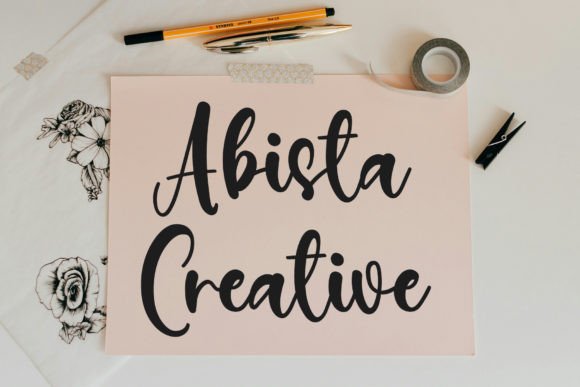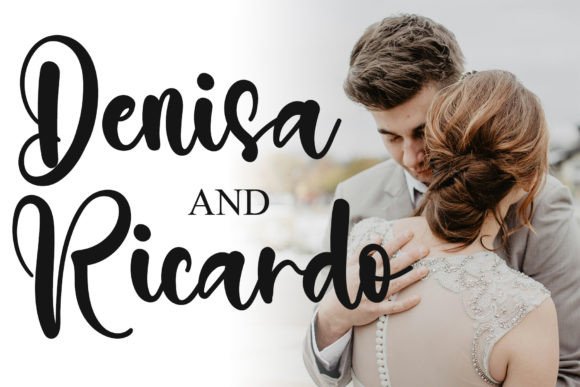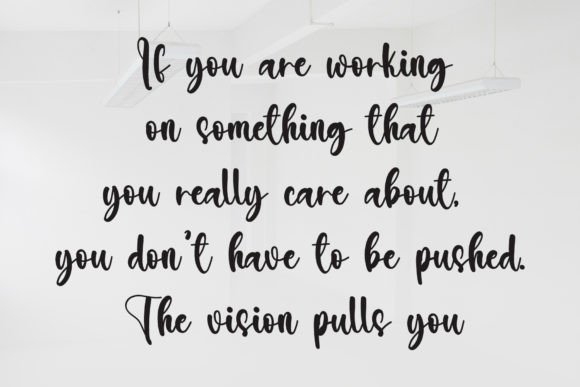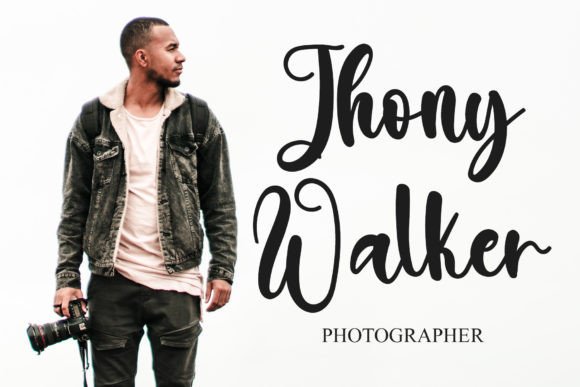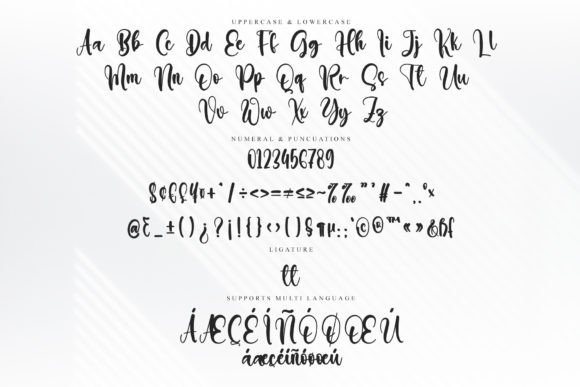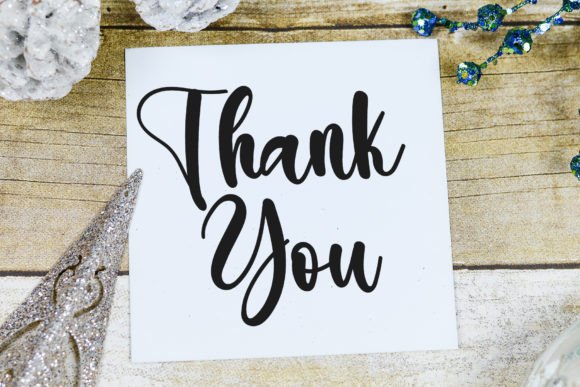
The Magic of the Season in Type
As the snowflakes start to fall and the fireplace crackles to life, I find myself rummaging through old holiday decorations, searching for that perfect touch to make this year’s celebrations truly special. It’s a feeling many designers can relate to – the urge to create something truly magical for the people we care about. And that’s exactly what the Farmhand Font is all about: spreading joy and festive cheer through the power of typography.
This enchanting typeface is designed to add a playful touch to your Christmas cards, decorations, and more. With its whimsical swashes and PUA encoding, you’ll have access to a world of amazing glyphs and ligatures at your fingertips. Whether you’re a seasoned designer or a holiday crafting novice, the Farmhand Font is the perfect tool to bring your festive vision to life.
Farmhand Font Key Features
- Unique Characteristics: Farmhand Font features a distinctive, hand-drawn design with a rustic feel, making it ideal for rural-themed designs, branding, and packaging.
Farmhand Font Review
I’ve had the chance to work with the Farmhand font, and here’s my honest take on it.
- Unique aesthetic: Farmhand font has a distinct, rustic feel that’s perfect for projects with a country or vintage vibe.
- High legibility: The font is surprisingly easy to read, even at smaller sizes, making it a great choice for body text.
- Good contrast: The font’s bold and light weights provide a nice contrast, making it easy to create visually appealing headings.
- Limited font weight options: While the bold and light weights are nice, there are only a few options in between, which can limit the font’s versatility.
- No italic or oblique options: If you need to use the font in a situation where italic or oblique text is required, you’re out of luck.
The Farmhand font is a solid choice for projects that need a rustic, country feel. While it has some limitations, its unique aesthetic and high legibility make it a great option for body text. If you’re looking for a font with a lot of flexibility, you might want to consider other options. But if you’re looking for a font that’s perfect for a specific niche, Farmhand is definitely worth considering.
Tips for Getting the Most Out of Farmhand Font
Use Farmhand Font for rustic, country-themed designs.
Combine with distressed textures and earthy colors for a unique look.
Use in conjunction with Farmhand-themed graphics, such as vintage farm equipment or agricultural illustrations.
Farmhand Font is ideal for:
Country-themed wedding invitations and stationery.
Rustic food labels and packaging.
Agricultural and outdoor-themed marketing materials.
Q: Is Farmhand Font available in different font weights?
Yes, Farmhand Font comes in multiple font weights, including Light, Regular, Medium, Bold, and Heavy. This allows designers to achieve the desired level of contrast and emphasis in their designs.
Q: What is the recommended line height for using Farmhand Font?
The recommended line height for using Farmhand Font is 1.2-1.5 times the font size. This helps maintain the font’s natural rhythm and prevents text from becoming too dense or cramped.